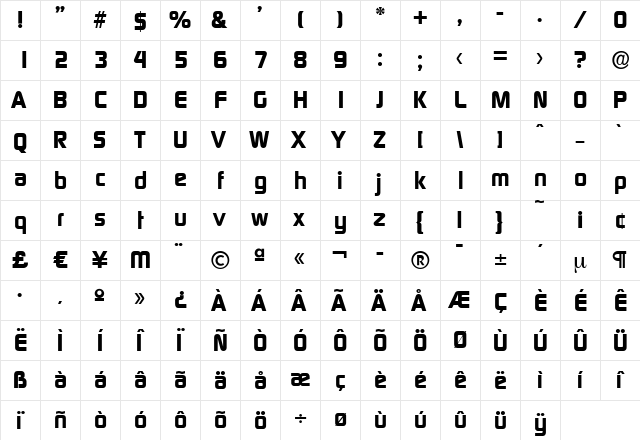
RandyBecker-ExtraBold Regular
Design Context for RandyBecker-ExtraBold Typeface
RandyBecker-ExtraBold offers clean, dependable letterforms without strong stylistic allegiance, making it a practical choice for designers who need flexibility. The heavy weight commands attention and anchors typographic hierarchies.